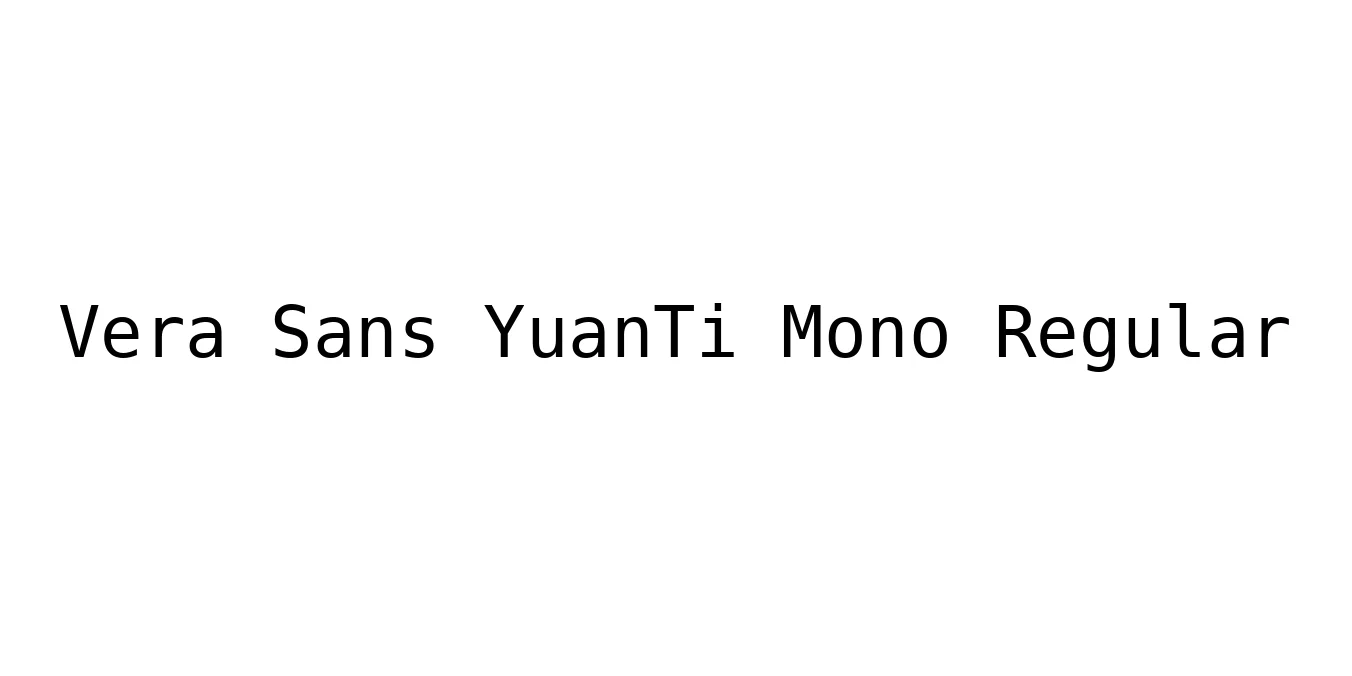
Vera Sans YuanTi Mono Regular
Designed by Jim Lyles (Bitstream)
| Font Name | Vera Sans YuanTi Mono |
| Category | Monospaced |
| Designer | Jim Lyles (Bitstream) |
Vera Sans YuanTi Mono Regular is a specialized monospaced typeface that blends the high-legibility Latin characters of the Bitstream Vera family with the smooth, rounded aesthetics of the YuanTi Chinese font style. Originally designed to improve the coding experience for developers, this font ensures that both Western and Eastern characters align perfectly within a fixed-width grid, making it an essential tool for multilingual software development and data processing.
The typeface is celebrated for its open-source heritage and its ability to maintain clarity even at small point sizes. By reducing visual clutter and emphasizing distinct character forms, Vera Sans YuanTi Mono Regular provides a comfortable reading experience for long sessions in text editors, terminal emulators, and technical documentation environments where precision is paramount.
Vera Sans YuanTi Mono Regular Best Uses
Ideal for software development with clear character distinction and syntax highlighting.
Great for command-line interfaces and server logs that require alignment.
Perfect for manuals containing both descriptive text and code snippets.
Suitable for applications requiring simultaneous Latin and Chinese character support.